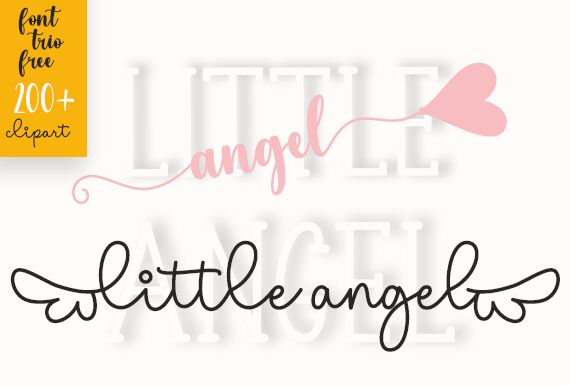
Little Angel Monolin
Little Angel Monolin, designed by Fillo Graphic, is an enchantingly cute handwritten font with a light weight. Its charming and whimsical style makes it perfect for various creative projects.
Use it to add a touch of innocence to children's books, create adorable greeting cards or invitations for baby showers and birthdays. This delightful typeface can also bring warmth and playfulness to social media graphics, blog headers, and cute product packaging.
Little Angel Monolin's delicate strokes will surely captivate hearts and evoke a sense of joy in any design endeavor.